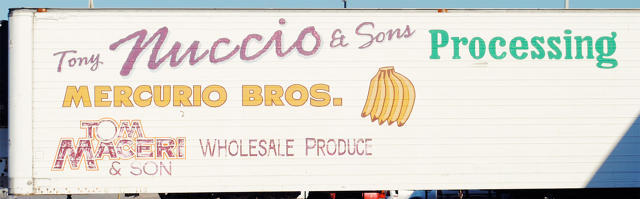
As old businesses close and new ones move in, neighborhoods are losing their visual identities. But now they can have signs that stay true to the neighborhood’s roots.
On her commute home from work in Detroit, designer Jessica Krcmarik started to become obsessed with the old signs lining the main drag of Woodward Avenue—machine shops, dry cleaners, “you buy, we fry” cafes with sprawling fish murals.
She started a photo archive, stopping whenever she discovered a new piece of hand lettering. But she also noticed that the typography was starting to disappear, replaced by plastic signs with standard fonts. “A lot of communities are kind of losing their visual culture, the more things get replaced with these very bland signs,” she says.
So now Krcmarik is working on something new. Using her collection of photos, she’s creating a set of new neighborhood-based fonts—and then giving them back to local business owners, who can use them to make signs inspired by the block’s original creativity.
As Detroit tries to clean itself up, the loss of old murals is accelerating. “We’re in the middle of what’s supposedly a giant graffiti cleanup campaign right now,” she says. “So the city will cover up a hand-painted sign or mural, or if your sign is older than five years, they’ll just go through with a paint roller and cover it up with a big block of beige paint.”
In the name of progress, most business owners opt for a new prefab plastic sign. Krcmarik, who had worked with a foundation to help make some new signs, realized that small businesses didn’t have a budget for much design work or custom signs.
“They pretty much use either system fonts or free ones, which end up looking okay, but they don’t look anything like the original area,” she says. “They don’t really have the personality of what had been there.”
Krcmarik looks for patterns in form or style in particular neighborhoods or blocks, and then works to create a hyperlocal font that will be offered at a pay-what-you-can rate back to local businesses.